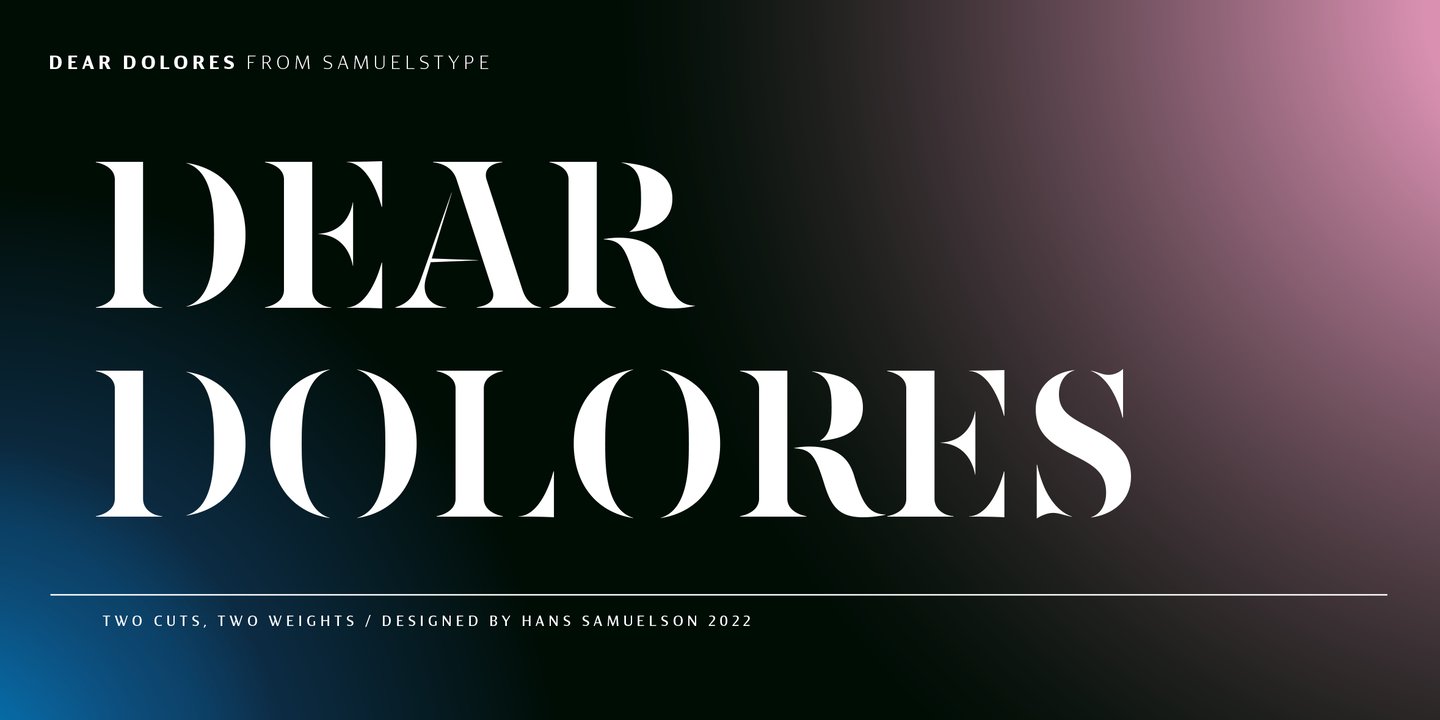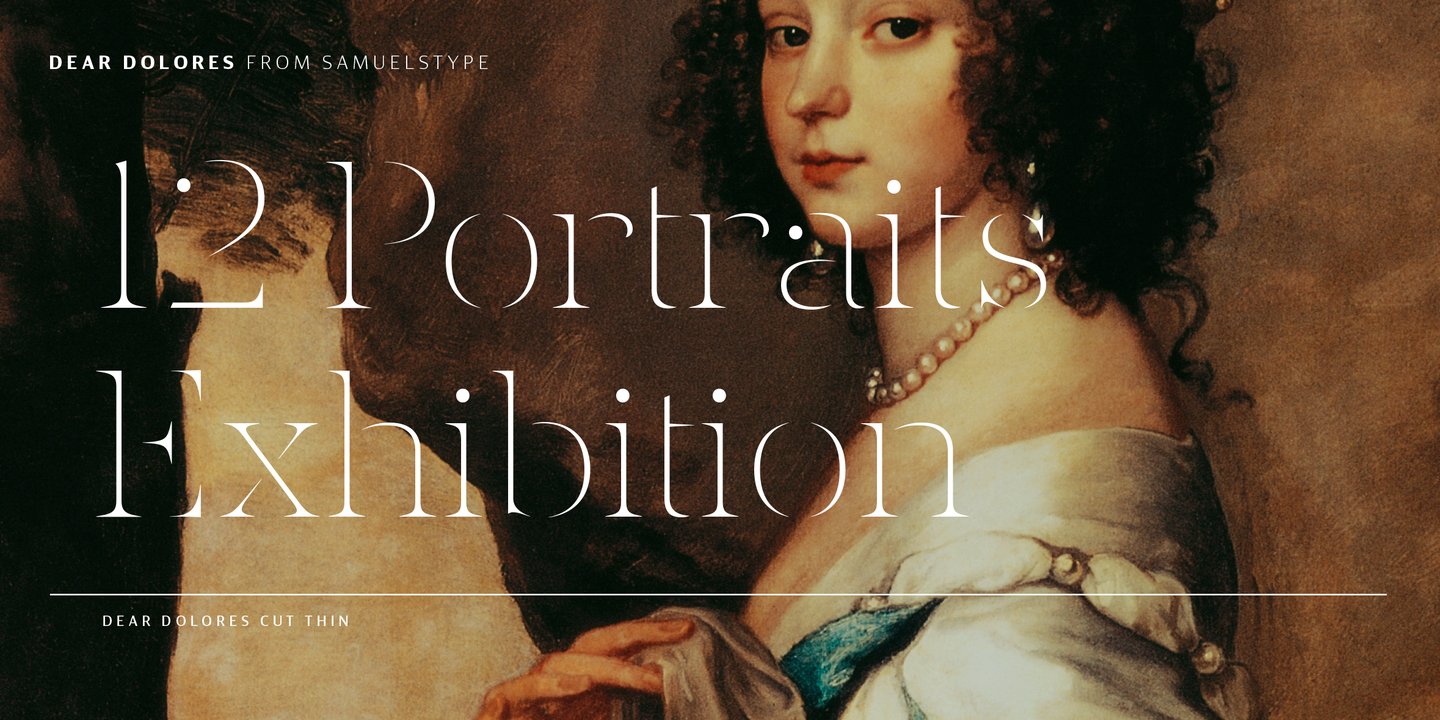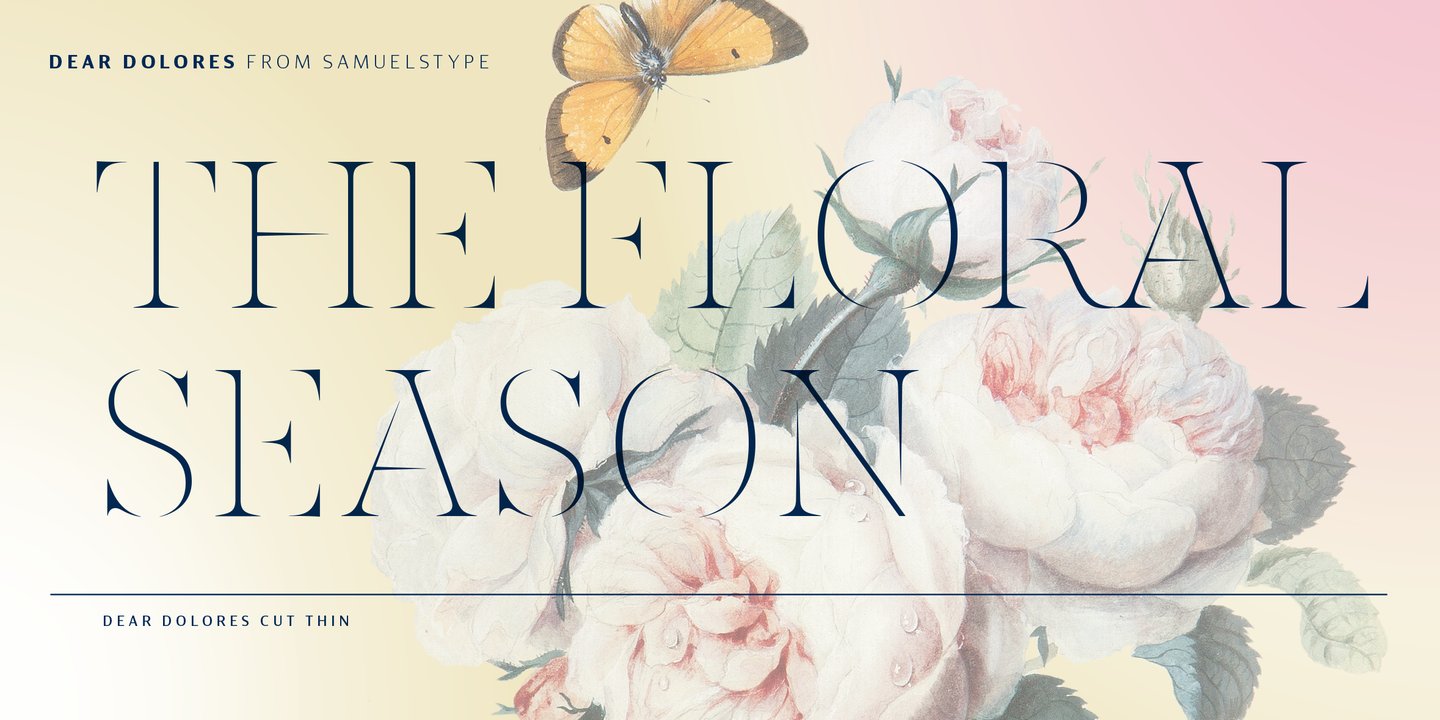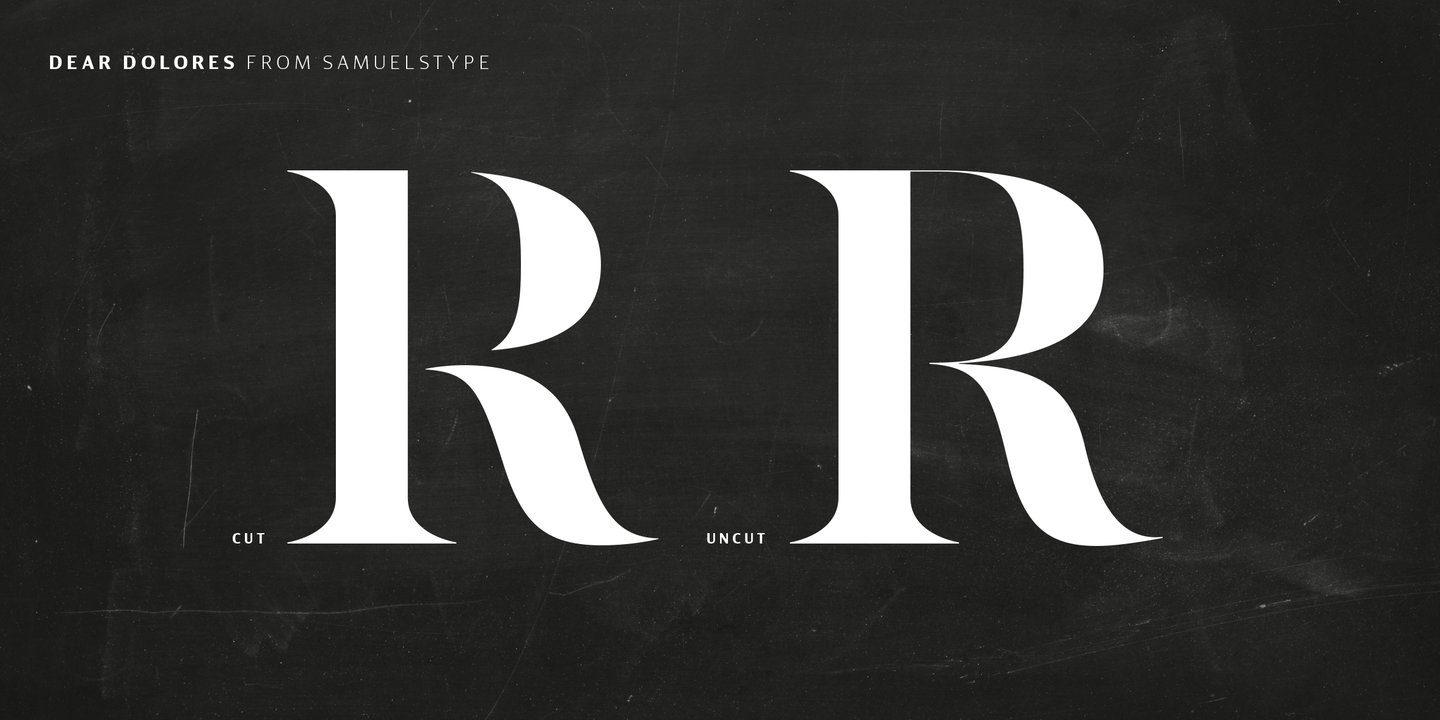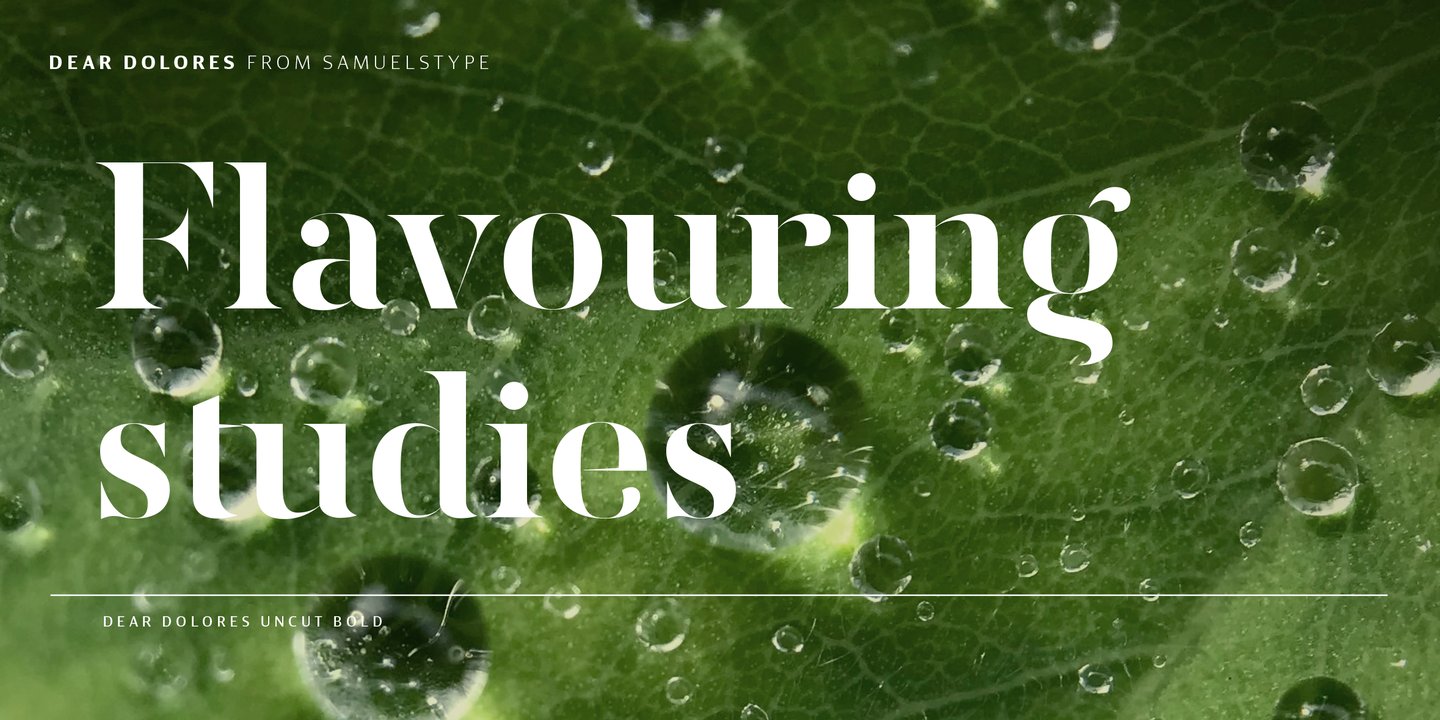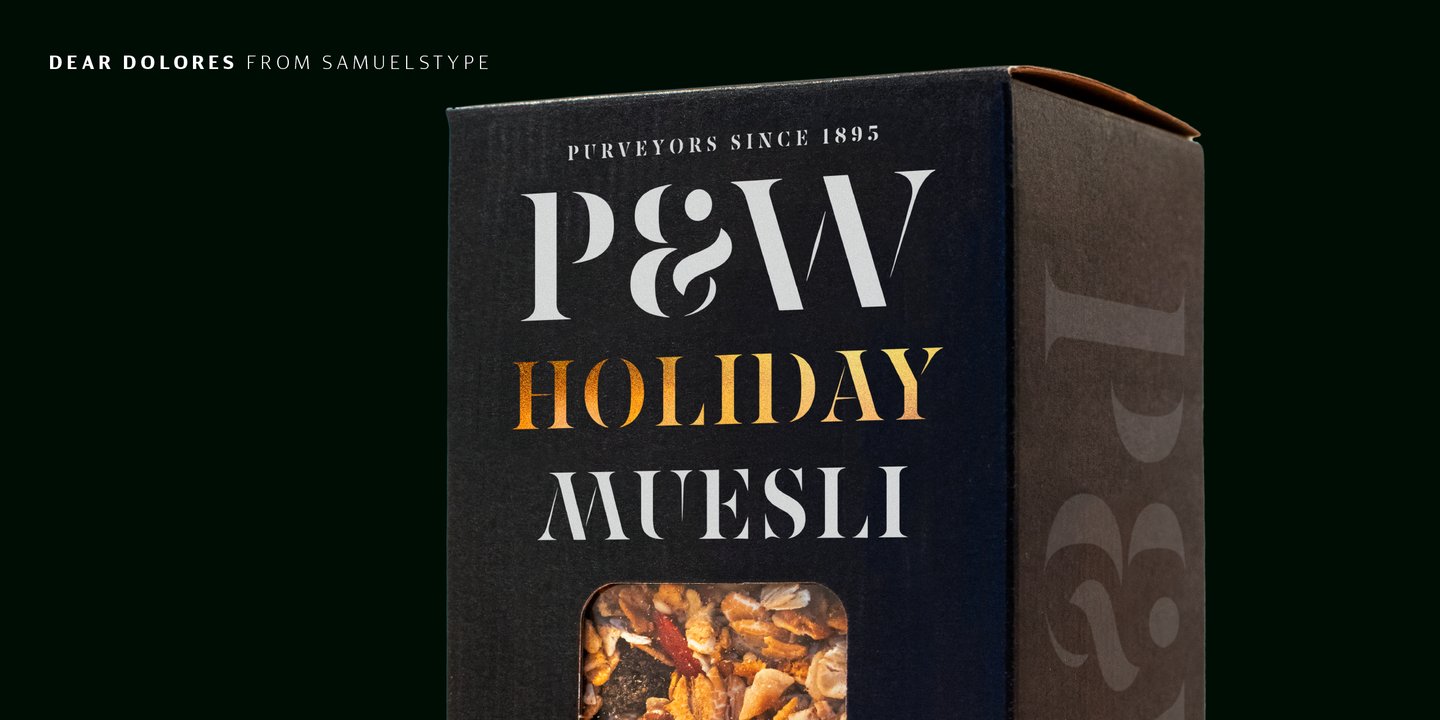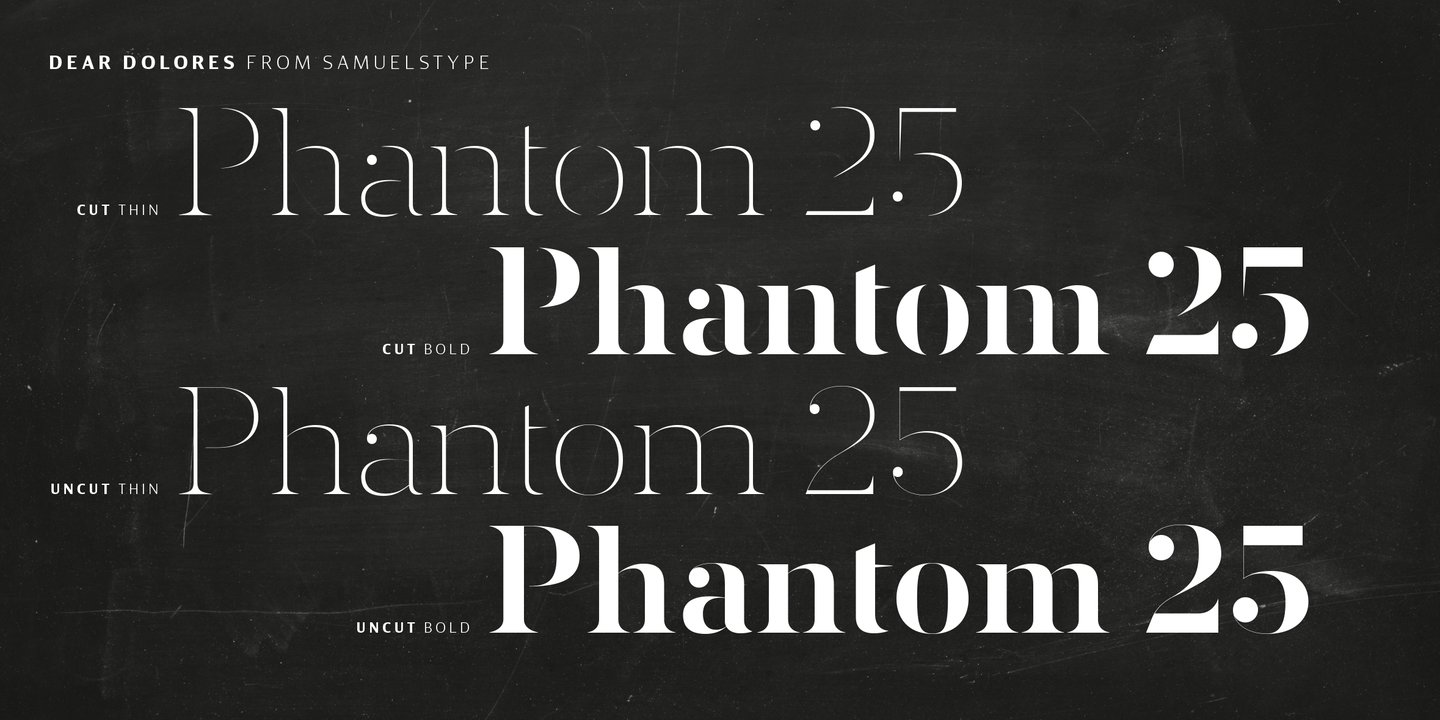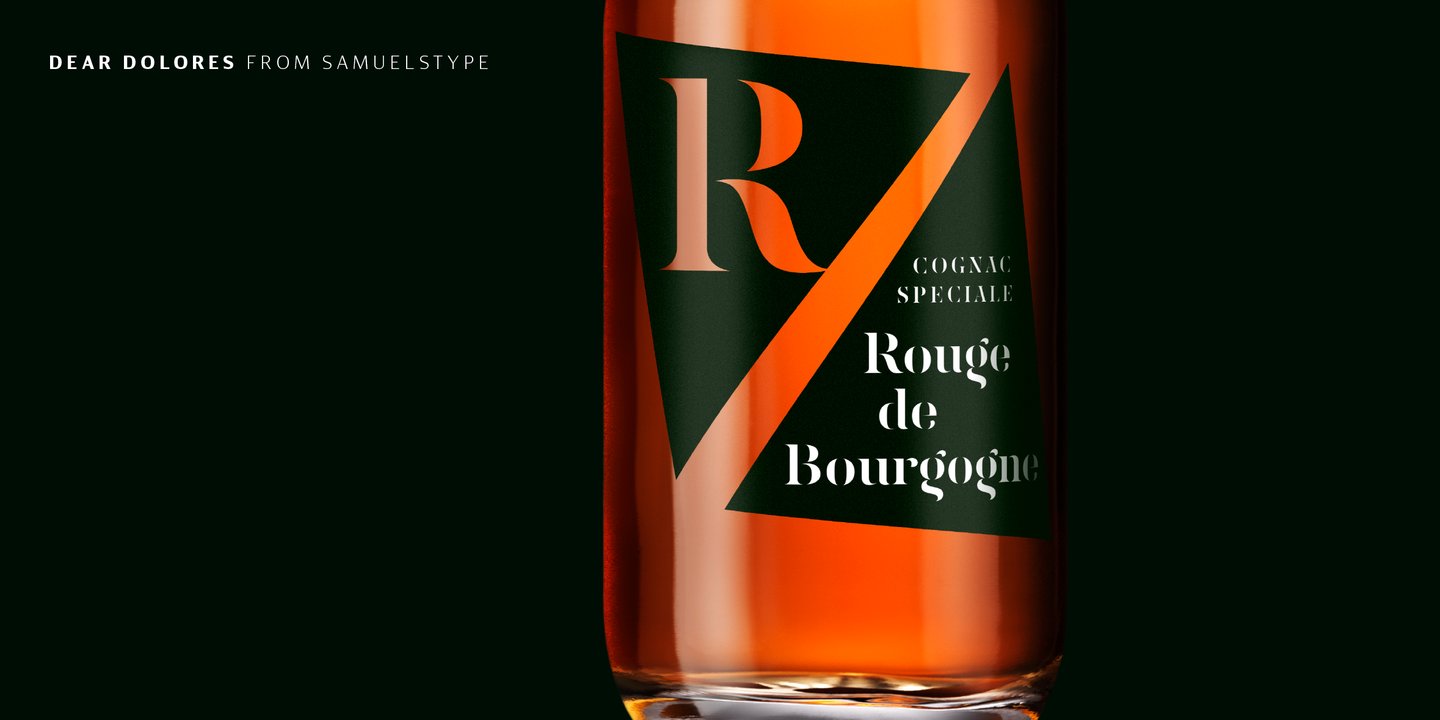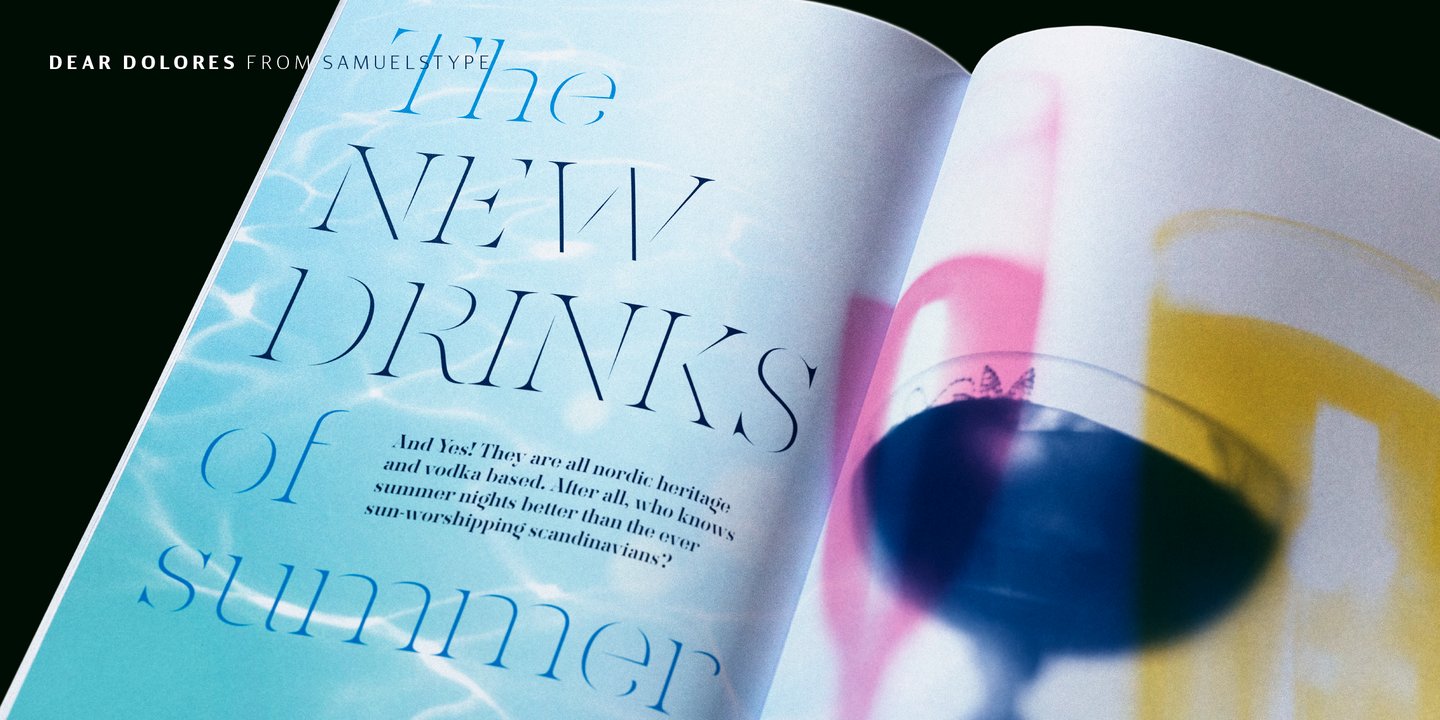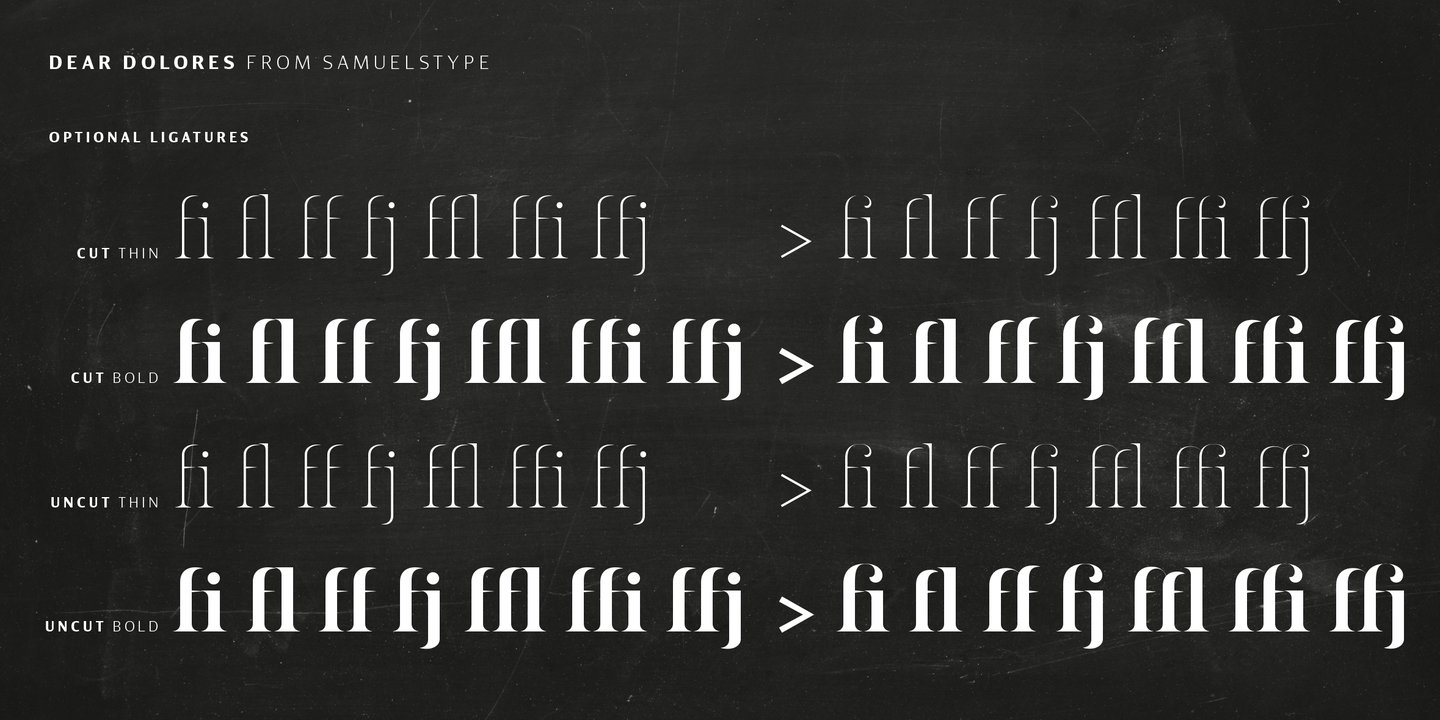
Dear Dolores has had its name from the latin word dolorem, meaning sorrow or grief. When I started working on this display font I found myself trying it out using the latin requiem texts. The capitals somehow sat well with the monumental and solemn words of mourning. The broken hairlines suggested stone cuttings where the fine details had been worn down and obliterated over time and it felt at home in a churchyard or in a monument park.
Adding lowercase gave the font a more personal and friendly appearance and opened up new possibilities for use. The name itself is a fictional message to someone long missed or perhaps lost too soon.
Dear Dolores comes in a cut and an uncut version where the fine details are left intact.
Both are excellent for headlines or memorable quotes.